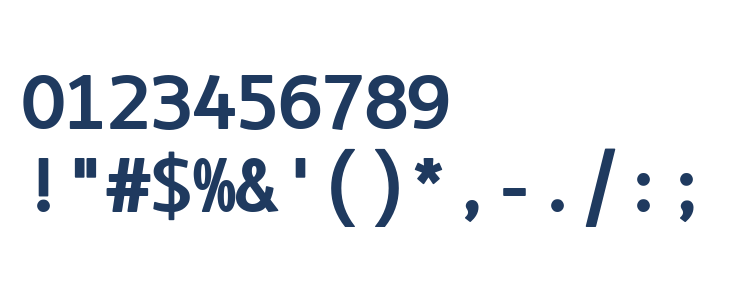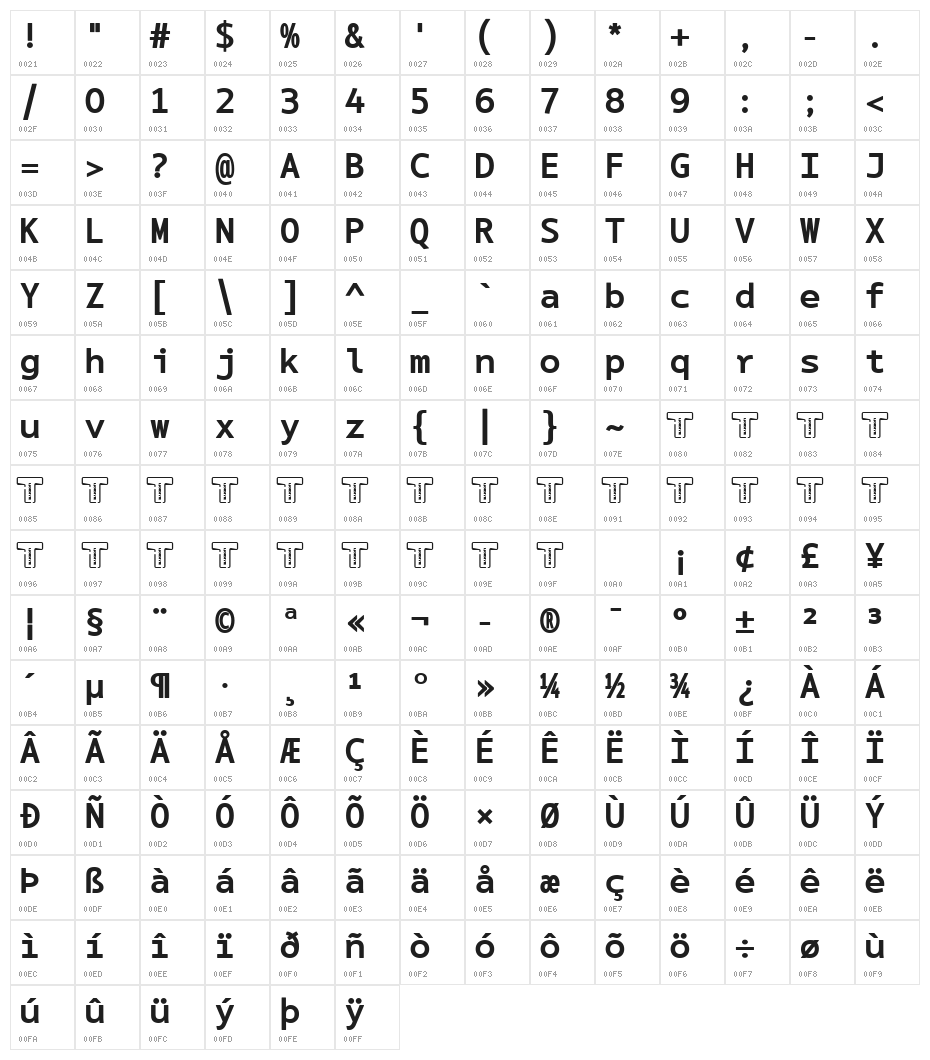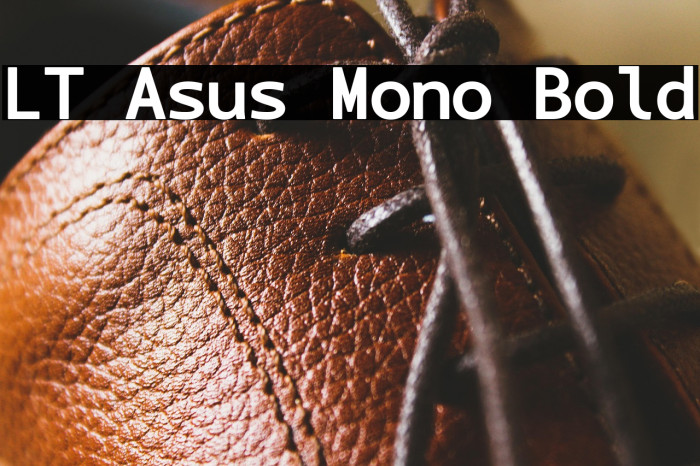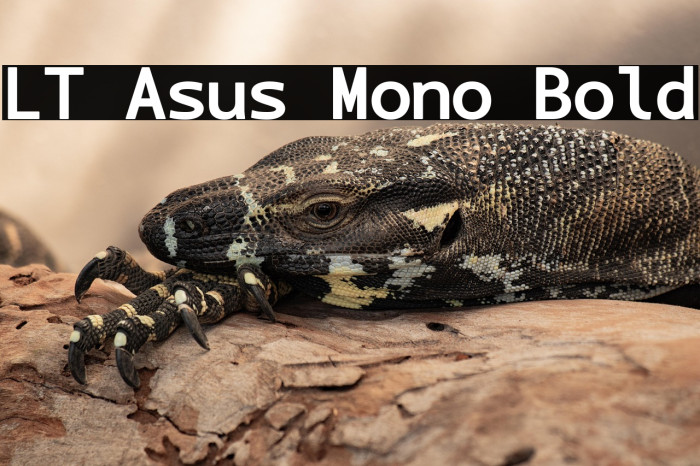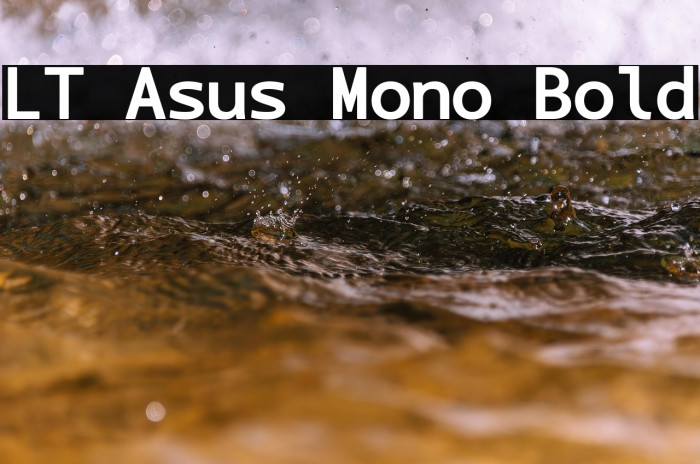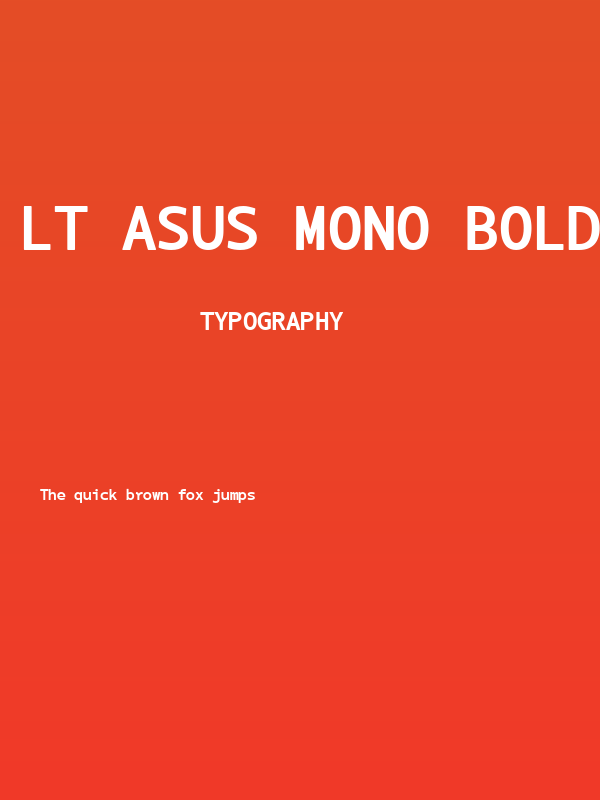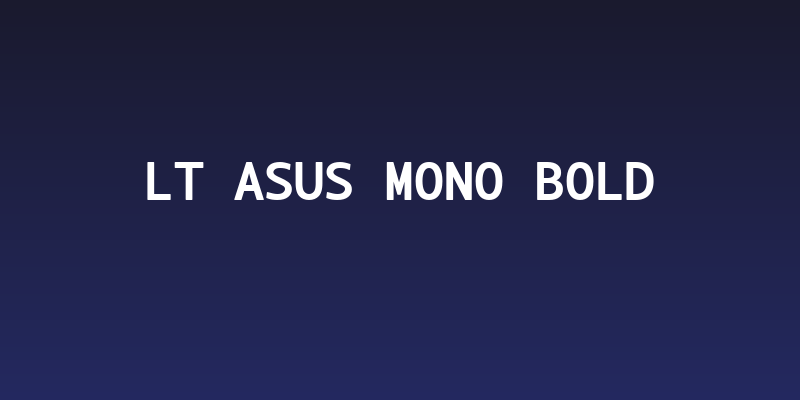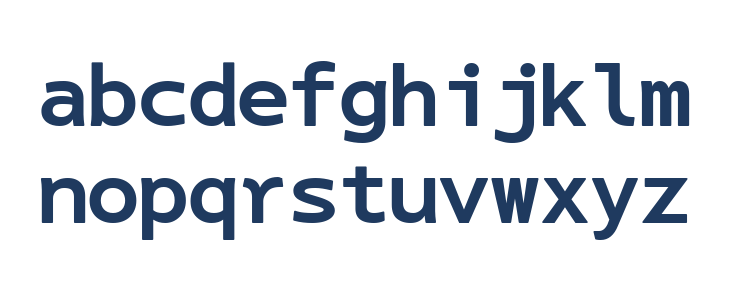
LT Asus Mono Bold Font
LT Asus Mono Bold Description
This font exhibits a clean and modern monospaced design, characterized by uniform character width which is ideal for coding and tabular data. The bold weight enhances readability, making it suitable for both digital and print media. Its geometric shapes and consistent stroke widths provide a balanced and structured appearance. The uppercase and lowercase letters maintain a harmonious alignment, while the numerals are clear and distinct. Special characters are well-defined, ensuring versatility across various applications.
| Use Case | Headlines, Body text, Logos, Coding |
| Proposed Projects | Ideal for coding environments, technical documentation, tabular data presentations, and any project requiring precise alignment. |